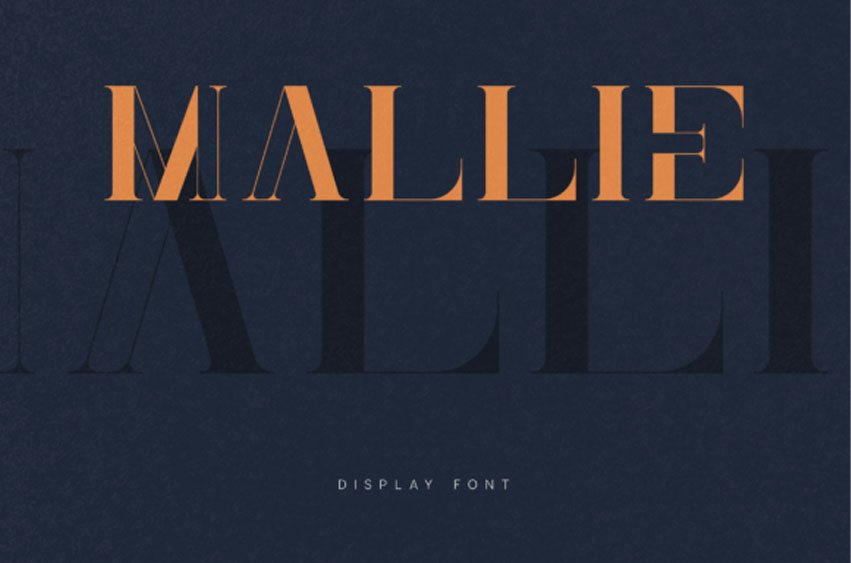
Mallie Font is a refined modern serif display font crafted for elegant typography and high-impact visual design. Mallie is particularly well suited for editorial layouts, fashion-inspired typography, branding projects, magazine headlines, posters, luxury packaging, and modern visual identities. Its refined contrast and elegant shapes allow designers to create expressive compositions that feel both timeless and contemporary.
With its elegant high-contrast structure and editorial personality, Mallie offers designers a sophisticated serif typeface for modern display typography.